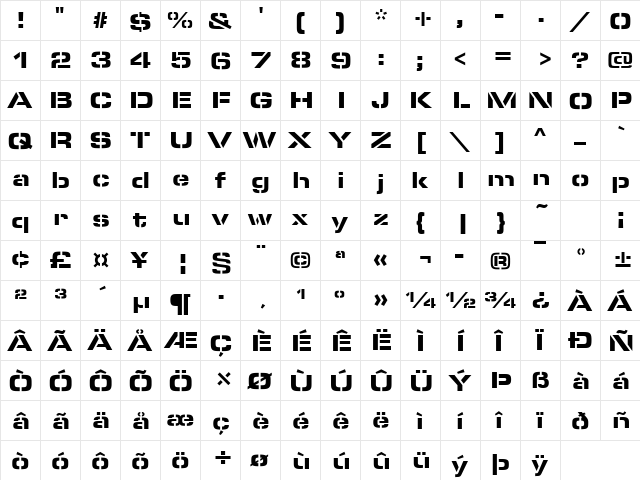
EurostileSteDBlaExt Regular Font Preview
EurostileSteDBlaExt Regular
EurostileSteDBlaExt Regular Font Details
Design Context for EurostileSteDBlaExt Typeface
EurostileSteDBlaExt takes a measured approach to typography — its balanced proportions and neutral character make it a reliable workhorse for both digital and print work.